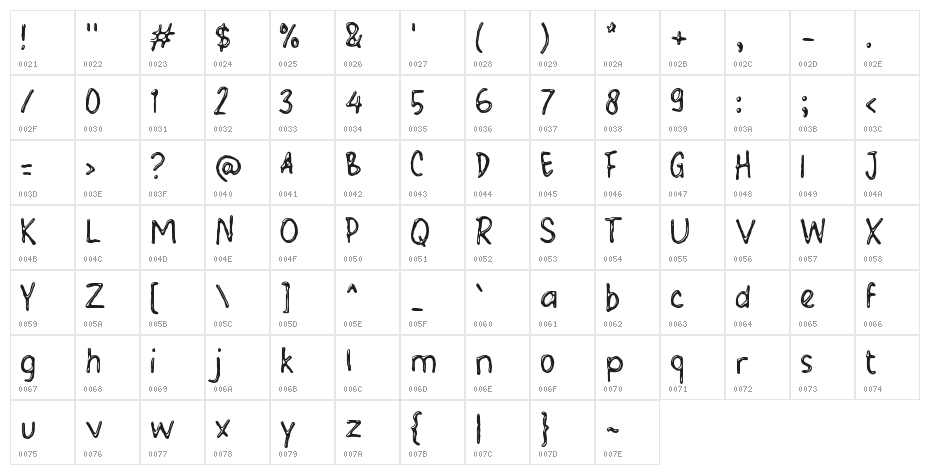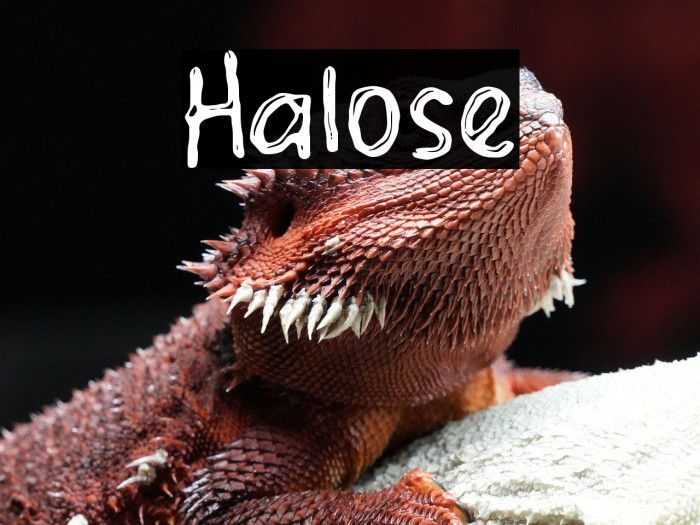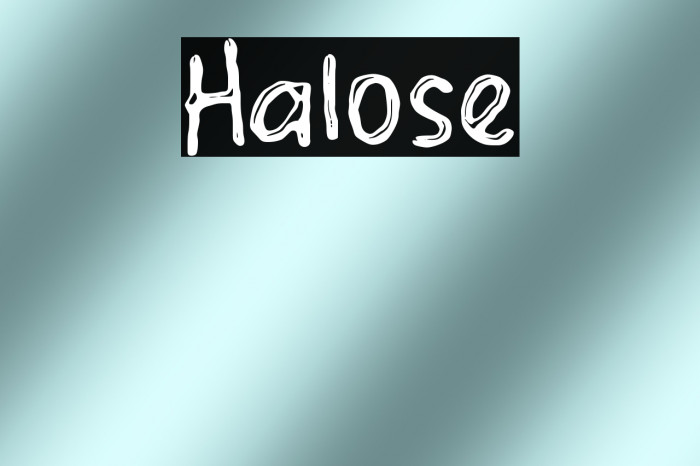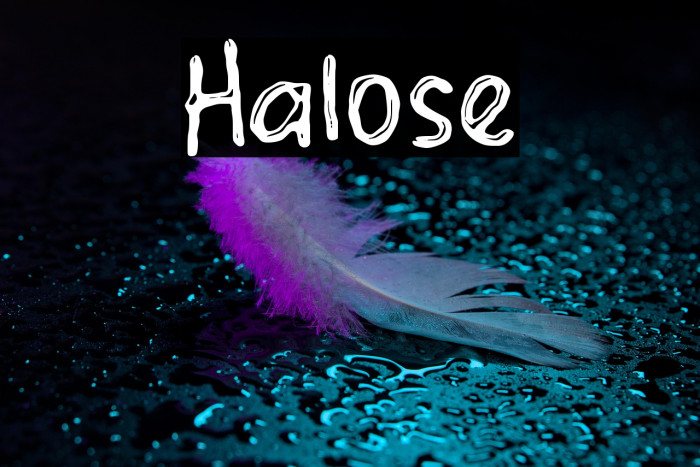
Halose Font
Halose Description
This font features a playful and energetic style, characterized by its hand-drawn appearance. The letters have a casual, informal look with uneven strokes and a slightly rough texture, giving it a whimsical and artistic feel. The uppercase and lowercase letters maintain a consistent style, with rounded edges and varying stroke widths that add to its dynamic nature. The numbers and special characters follow the same design principles, ensuring a cohesive look across all elements. This font is ideal for projects that require a fun and approachable aesthetic.
Proposed ProjectsIdeal for children's books, creative posters, playful branding, and casual invitations.